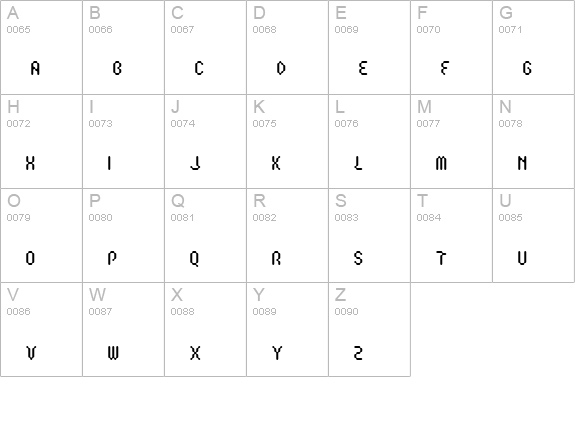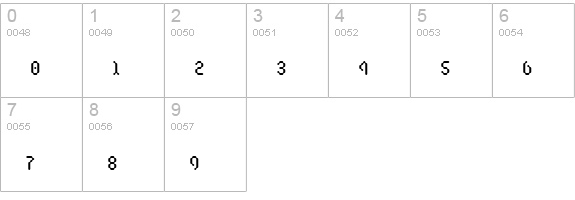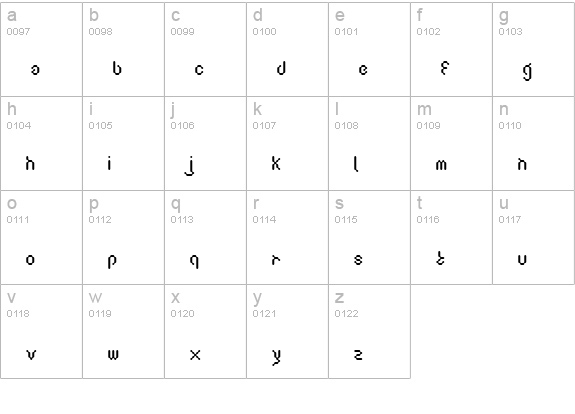
PulsarGClass Font Details
PulsarGClass font is a sleek and modern typeface that exudes elegance and sophistication. Its clean lines and sharp edges make it perfect for a wide range of design projects, from branding to editorial layouts. The font's versatility allows it to be used in both digital and print media, making it a valuable addition to any designer's toolkit. What sets PulsarGClass font apart is not only its striking appearance but also the fact that it is available for free download at FontsMarket.com. This means that designers can access this high-quality font without any cost, making it a fantastic resource for both beginners and seasoned professionals alike. Whether you're looking to add a touch of refinement to your next project or simply want to explore a new typeface, PulsarGClass font is the perfect choice. Download it for free today and elevate your designs with this stunning and versatile font.